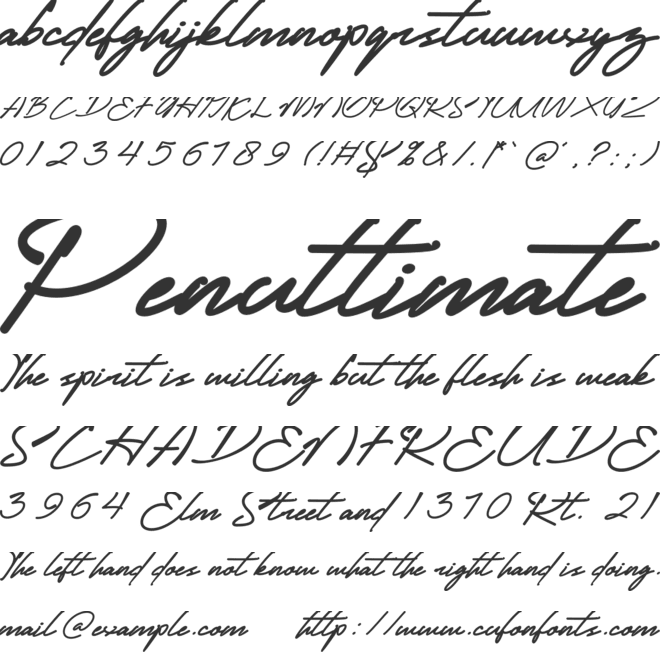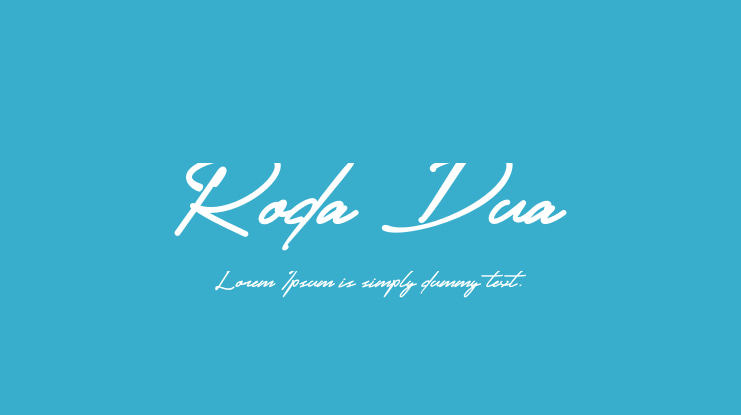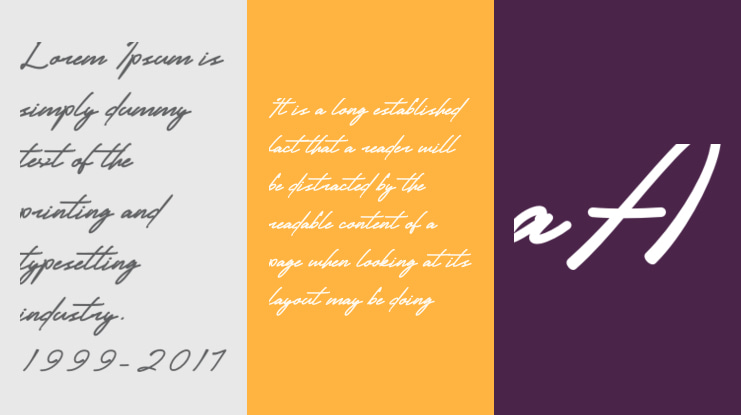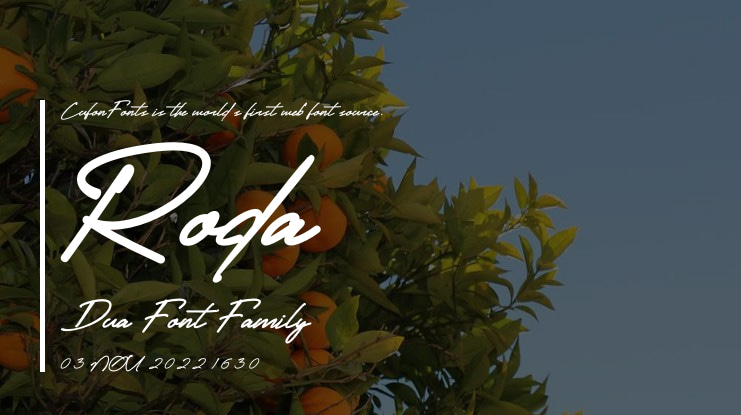
Roda Dua Font
Introducing "Roda Dua," a stylish handwritten signature font that exudes casual elegance with a personal touch. The fluid strokes and smooth curves lend it a refined yet relaxed appearance, making it ideal for designs seeking a sophisticated and authentic feel. Perfect for branding, invitations, or any creative project that requires a unique, personalized touch, Roda Dua seamlessly complements modern and minimalist aesthetics. Its balanced lines and natural flow capture the charm of hand-drawn signatures, beautifully enhancing any text.